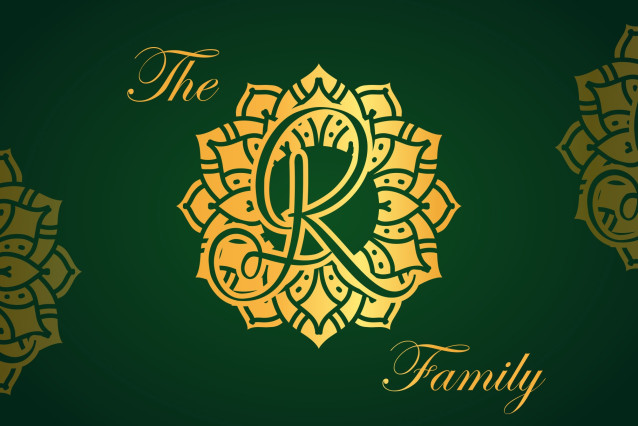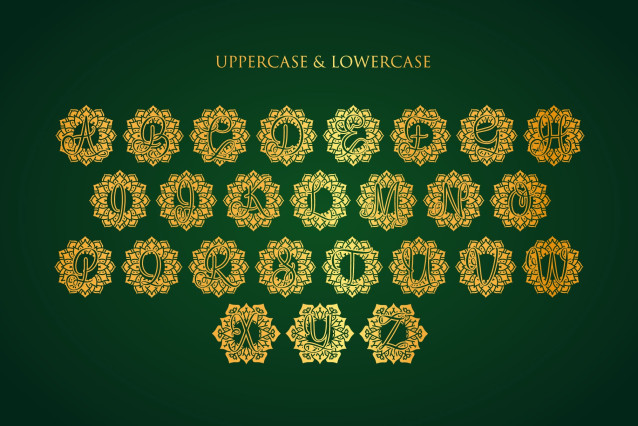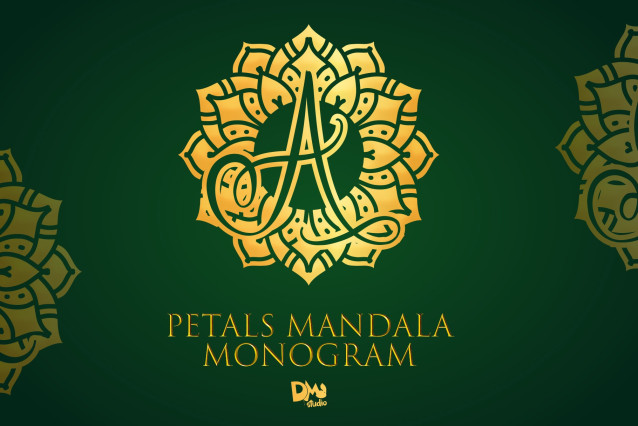
Petals Mandala Monogram Font
Petals Mandala Monogram Font is a beautifully crafted monogram font that combines flowing vine elements with intricate mandala details. Inspired by the elegance of nature and ornamental linework, this font is perfect for wedding suites, eco-friendly branding, natural product packaging, personalized gifts, and holistic wellness designs. Its graceful and earthy aesthetic brings harmony and sophistication to any creative project.